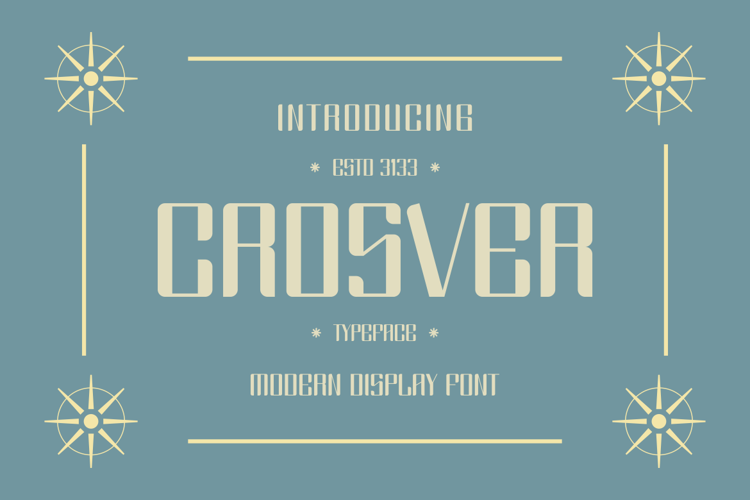
CROSVER Font
About CROSVER Font
Introducing our new product **CROSVER Font** - Modern Font
**CROSVER Font** - Modern Font is a bold and authentic display font. The font is suitable for any branding project like logo, t-shirt printing, esport, and many more. outstanding in a wide range of contexts.